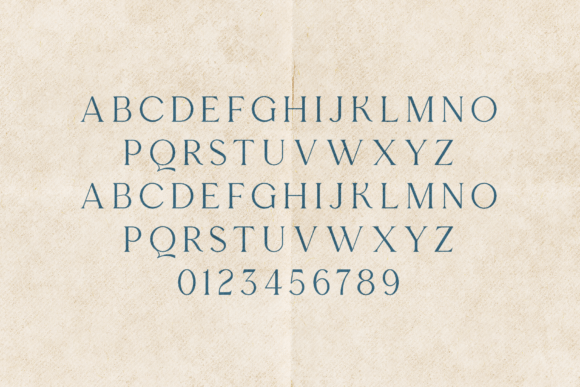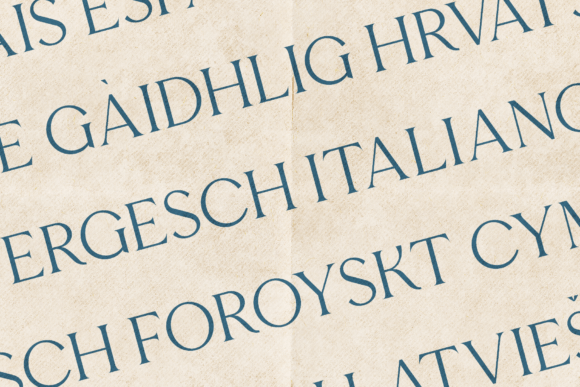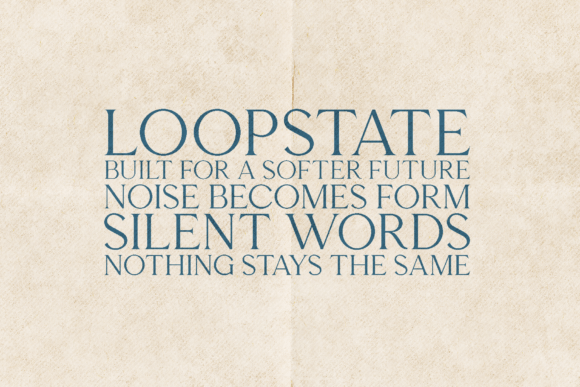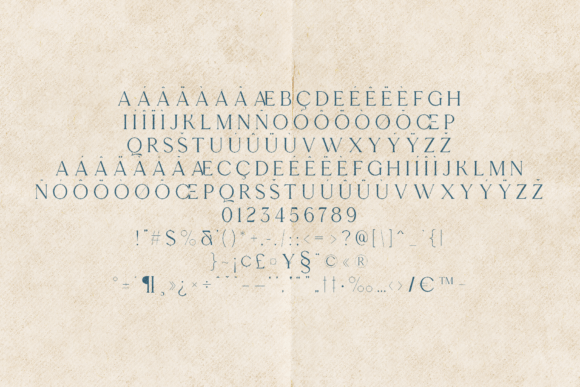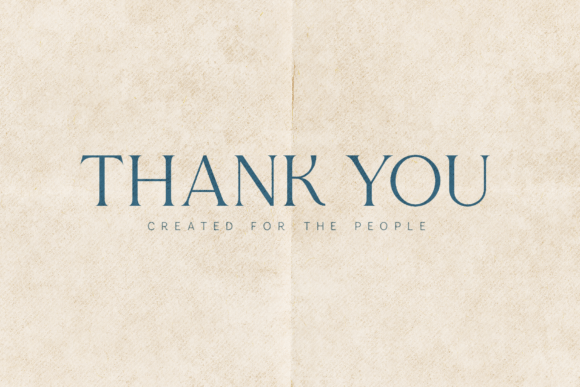
Introducing Esque Font: Elevate Your Design with Soft Elegance
In the world of typography, finding the perfect font that embodies both sophistication and subtlety can be a daunting task. However, for designers and crafters seeking a typeface that exudes calm, refined, and timeless elegance, look no further than Esque Font. This beautifully crafted serif font is designed to bring a quiet sophistication to your projects, making it an ideal choice for a wide range of applications.
The Essence of Esque Font
Esque is more than just a font; it’s a typographic experience. With its soft, elegant serifs, gentle curves, and balanced proportions, Esque delivers a refined aesthetic that feels both classic and contemporary. The subtle contrast in the font adds depth without overpowering the overall design, making it perfect for creating a lasting impression.
Crafted for Warmth and Human Touch
What sets Esque apart is its warm and human feel. This font is crafted to evoke a sense of approachability and intimacy, making it an excellent choice for projects where you want to connect with your audience on a more personal level. Whether you’re working on editorial layouts, branding, book covers, packaging, invitations, or cultural and lifestyle projects, Esque provides a typographic solution that feels both sophisticated and down-to-earth.
Esque’s soft serif details create a graceful rhythm that works beautifully in headlines, short text, and expressive compositions. One of the font’s standout features is its ability to balance elegance with readability. This versatility allows Esque to adapt effortlessly to both print and digital use, making it a reliable choice for designers who work across multiple mediums.
A Poetic and Restrained Character
The overall character of Esque is thoughtful, poetic, and restrained. In a design world often dominated by bold and loud typography, Esque offers a refreshing alternative. It’s perfect for designers who value subtlety over excess and are looking for a font that can convey complex ideas with simplicity and grace.
Extensive Features for Professional Use
Esque includes a complete character set with extensive multilingual support, numerals, punctuation, and symbols. This comprehensive feature set makes Esque a reliable choice for professional design systems across languages. Whether you’re working on a project that requires support for multiple languages or simply need a font that can handle a wide range of typographic elements, Esque has you covered.
Ideal Applications
Given its elegant and versatile nature, Esque is well-suited for a variety of design applications, including:
- Editorial & Magazine Design: Bring a touch of sophistication to your editorial projects with Esque’s refined typography.
- Branding & Visual Identity: Use Esque to create a lasting impression with your brand’s visual identity.
- Book Covers: Add a touch of elegance to your book covers with Esque’s soft serif details.
- Packaging: Elevate your packaging design with a font that exudes calm and refined elegance.
- Invitations: Make your invitations stand out with Esque’s beautiful and sophisticated typography.
- Cultural or Lifestyle Projects: Use Esque to bring a sense of warmth and human touch to your cultural or lifestyle projects.
Esque Font is a beautifully crafted serif font that offers a unique blend of elegance, subtlety, and versatility. Its soft, elegant serifs, gentle curves, and balanced proportions make it an ideal choice for designers and crafters seeking a refined typographic solution. With its extensive feature set and wide range of applications, Esque is poised to become a go-to font for projects that demand a touch of sophistication and class. Whether you’re working on editorial layouts, branding, book covers, or any other design project, Esque is sure to deliver a typographic experience that is both timeless and impactful.